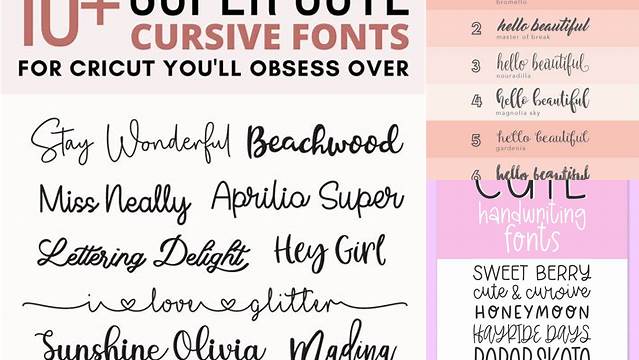
Cute Cursive Fonts: Find The Best On DaFont
Introduction: Discovering the Charm of Cursive Fonts
Hey guys! Have you ever scrolled through DaFont, searching for that perfect cursive font to add a touch of elegance and personality to your projects? Well, you're not alone! Cursive fonts, with their flowing lines and handwritten feel, can bring a unique charm to invitations, logos, websites, and so much more. In this article, we'll dive deep into the world of cute cursive fonts available on DaFont, exploring what makes them so appealing and how you can use them effectively.
Cursive fonts, also known as script fonts, mimic the style of human handwriting. They're characterized by connected letterforms, creating a fluid and graceful appearance. What sets cute cursive fonts apart is their added touch of playfulness, warmth, and approachability. They often feature rounded edges, whimsical swashes, and a generally lighthearted feel, making them ideal for projects that aim to evoke feelings of joy, nostalgia, or intimacy. When browsing DaFont, you'll find a massive selection of cursive fonts, each with its own unique personality and style. From elegant and refined scripts to quirky and fun handwritten fonts, there's something for every project imaginable. Whether you're designing a wedding invitation, creating a logo for a children's boutique, or adding a personal touch to your website, a cute cursive font can help you achieve the desired effect.
Choosing the right cursive font involves considering several factors. First, think about the overall tone and message you want to convey. Do you want something formal and sophisticated, or more casual and playful? Next, consider the readability of the font, especially when used in larger blocks of text. Some cursive fonts can be difficult to read if the letterforms are too intricate or the spacing is too tight. Finally, pay attention to the details, such as the thickness of the strokes, the presence of swashes, and the overall balance of the design. By carefully considering these factors, you can find a cute cursive font that perfectly complements your project and helps you achieve your creative vision. So, let's embark on this exciting journey of exploring the world of cute cursive fonts on DaFont!
Top Picks: Adorable Cursive Fonts on DaFont
Finding the perfect cute cursive fonts on DaFont can feel like searching for a needle in a haystack, right? Don't worry; I've done some digging to bring you some top picks that are sure to add a dash of charm to your projects. These fonts stand out for their unique styles and versatility, making them great choices for a wide range of applications. When exploring cursive fonts on DaFont, you'll quickly notice the incredible diversity of styles available. Some fonts are elegant and refined, with delicate letterforms and graceful swashes. These fonts are perfect for projects that require a touch of sophistication, such as wedding invitations, luxury branding, or high-end packaging. Others are more casual and playful, with rounded edges and whimsical details. These fonts are ideal for projects that aim to evoke feelings of joy, warmth, and approachability, such as children's books, greeting cards, or personal blogs.
Here are a few noteworthy options, so you can add them to your collection, guys:
- Honey Script: This font is sweet as honey. Its rounded letterforms and playful swashes make it perfect for adding a touch of warmth to your designs. It's great for logos, invitations, and social media graphics. This font exudes a sense of playfulness and approachability. The letters have a delightful bounce, and the swashes add a touch of whimsy without being overwhelming. This font would be particularly well-suited for branding projects related to bakeries, cafes, or children's products. Its friendly and inviting nature can help create a positive and memorable brand image. The versatility of this font makes it a valuable asset for any designer looking to add a touch of sweetness to their work.
- Lemon Jelly: A delightfully quirky font that will make your text stand out. Its uneven baseline and playful letterforms give it a unique and memorable look. It's perfect for adding a touch of personality to websites, posters, and more. The playful nature of this font makes it ideal for projects that need a bit of extra character and fun. It would be an excellent choice for designing eye-catching posters, quirky website headers, or engaging social media content. The uneven baseline adds a touch of informality and helps to prevent the font from feeling too serious. This font is a great way to inject some personality into your designs and make them more memorable.
- Strawberry Script: With its flowing lines and elegant curves, this font exudes sophistication. It's perfect for adding a touch of class to wedding invitations, logos, and other formal designs. The elegant curves and flowing lines create a sense of movement and grace. This font is perfect for projects that require a touch of sophistication and refinement. It would be a stunning choice for wedding invitations, luxury branding, or high-end packaging. The font's delicate details and balanced proportions contribute to its overall sense of elegance and timelessness. Using this font is a surefire way to elevate the visual appeal of your designs and make a lasting impression.
- Candy Land: Bring a touch of sweetness to your designs with this playful font. Its rounded letterforms and cheerful vibe make it perfect for children's books, birthday cards, and more. The cheerful vibe makes it perfect for projects that need to be fun and engaging. It would be an excellent choice for designing children's books, birthday cards, or party invitations. The rounded letterforms add a touch of softness and approachability, making the font particularly appealing to young audiences. This font is a fantastic way to create a sense of joy and excitement in your designs and make them more memorable for children.
How to Use Cursive Fonts Effectively
Okay, so you've found some cute cursive fonts you love, but how do you actually use them effectively in your designs? Well, here are some tips to keep in mind. Using cursive fonts effectively involves more than just selecting a pretty typeface. It requires careful consideration of context, readability, and overall design harmony. When used correctly, cursive fonts can add a touch of elegance, personality, and charm to your projects. However, when used poorly, they can detract from the overall design and even make your text difficult to read.
- Readability is Key: While cursive fonts are beautiful, they can sometimes be difficult to read, especially in large blocks of text. Use them sparingly, and make sure the letterforms are clear and legible. When incorporating cursive fonts into your designs, always prioritize readability. Avoid using them for long paragraphs of text, as the connected letterforms can become tiring to the eye. Instead, use them for headings, subheadings, logos, or short quotes. Ensure that the font size is large enough and that there is sufficient spacing between the letters and lines to improve readability. Consider the background color and contrast to ensure that the text stands out clearly.
- Pairing Matters: Choose fonts that complement your cursive font. A simple sans-serif or serif font can provide a nice contrast and improve readability. The art of font pairing is crucial for creating visually appealing and harmonious designs. When pairing a cursive font with another typeface, aim for contrast and balance. A simple sans-serif font, such as Helvetica or Arial, can provide a clean and modern contrast to the flowing lines of the cursive font. Alternatively, a classic serif font, such as Times New Roman or Garamond, can create a more traditional and elegant look. Experiment with different font combinations to find what works best for your project. Pay attention to the font weights and sizes to ensure that the fonts complement each other without overpowering one another.
- Context is Everything: Consider the overall tone and style of your project. A cute cursive font might be perfect for a wedding invitation, but not so much for a business report. Always consider the context in which the cursive font will be used. A font that is suitable for a wedding invitation may not be appropriate for a business report or a technical document. Ensure that the font aligns with the overall tone and style of your project. For formal occasions, choose elegant and refined cursive fonts. For more casual projects, opt for playful and whimsical fonts. Consider the target audience and the message you want to convey. By carefully considering the context, you can choose a cursive font that enhances the overall impact of your design.
- Less is More: Don't overuse cursive fonts. A little goes a long way, and too much can make your design look cluttered and overwhelming. When it comes to cursive fonts, less is often more. Avoid using too many cursive fonts in a single design, as this can create a cluttered and overwhelming effect. Instead, focus on using one or two cursive fonts sparingly and strategically. Use them to highlight key elements, such as headings, logos, or quotes. Allow plenty of white space around the cursive font to give it room to breathe and prevent it from feeling cramped. By using cursive fonts sparingly, you can create a more impactful and visually appealing design.
Conclusion: Adding a Touch of Cuteness with Cursive Fonts
So, there you have it! Cute cursive fonts on DaFont can be a fantastic way to add personality and charm to your designs. Just remember to choose wisely, use them sparingly, and always prioritize readability. With these tips in mind, you'll be creating beautiful and eye-catching designs in no time! Cursive fonts are powerful tools that can evoke emotions, convey messages, and enhance the overall aesthetic of your designs. Whether you're designing a wedding invitation, creating a logo for a small business, or adding a personal touch to your website, a cute cursive font can help you achieve your creative vision. By exploring the vast collection of cursive fonts available on DaFont and following the tips outlined in this article, you can unlock the full potential of these beautiful typefaces and create designs that are both visually appealing and highly effective. So, go ahead and experiment with different cursive fonts, and discover the perfect one to add a touch of cuteness to your next project!